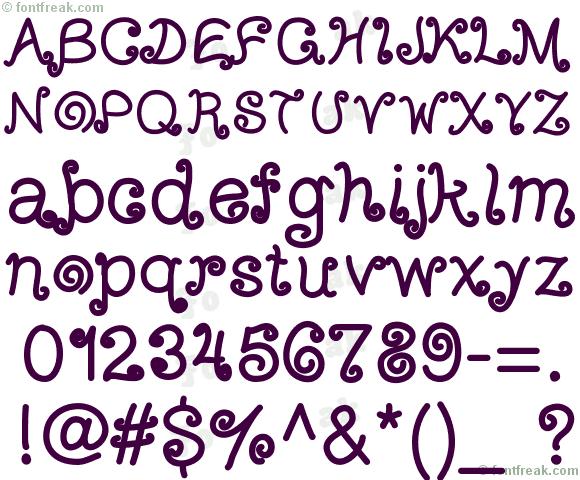
ArizonaTumbleweed
About ArizonaTumbleweed
ArizonaTumbleweed, designed by Shara Weber, is a decorative font that expertly captures a whimsical, rustic essence. This typeface features a unique blend of flowing lines and playful curves, making it an ideal choice for projects that require a touch of charm and personality. The strokes are medium-weight with a moderate contrast that maintains legibility while adding visual interest. The spacing is thoughtfully designed to ensure readability, even at smaller sizes, while the decorative elements lend a sense of movement and spontaneity.
The ArizonaTumbleweed font is perfect for a variety of creative applications. It's an excellent choice for wedding invitations, where its whimsical design can beautifully set the tone for romance and celebration. Additionally, it works well on movie posters, adding a fun and eye-catching aesthetic that draws viewers in. Restaurant menus can also benefit from this font's unique style, imparting a casual yet inviting feel that aligns perfectly with cozy dining experiences. Content creators looking to craft engaging social media graphics or blog headers will find ArizonaTumbleweed to be a delightful addition to their toolkit.
What sets the ArizonaTumbleweed font apart is its ability to convey a sense of fun and warmth through its unique design. The playful curves and decorative elements invite viewers to engage, making it an ideal choice for projects that aim to create a memorable impression. For those searching for a charming typeface, the ArizonaTumbleweed font free download is the perfect way to elevate your creative endeavors.